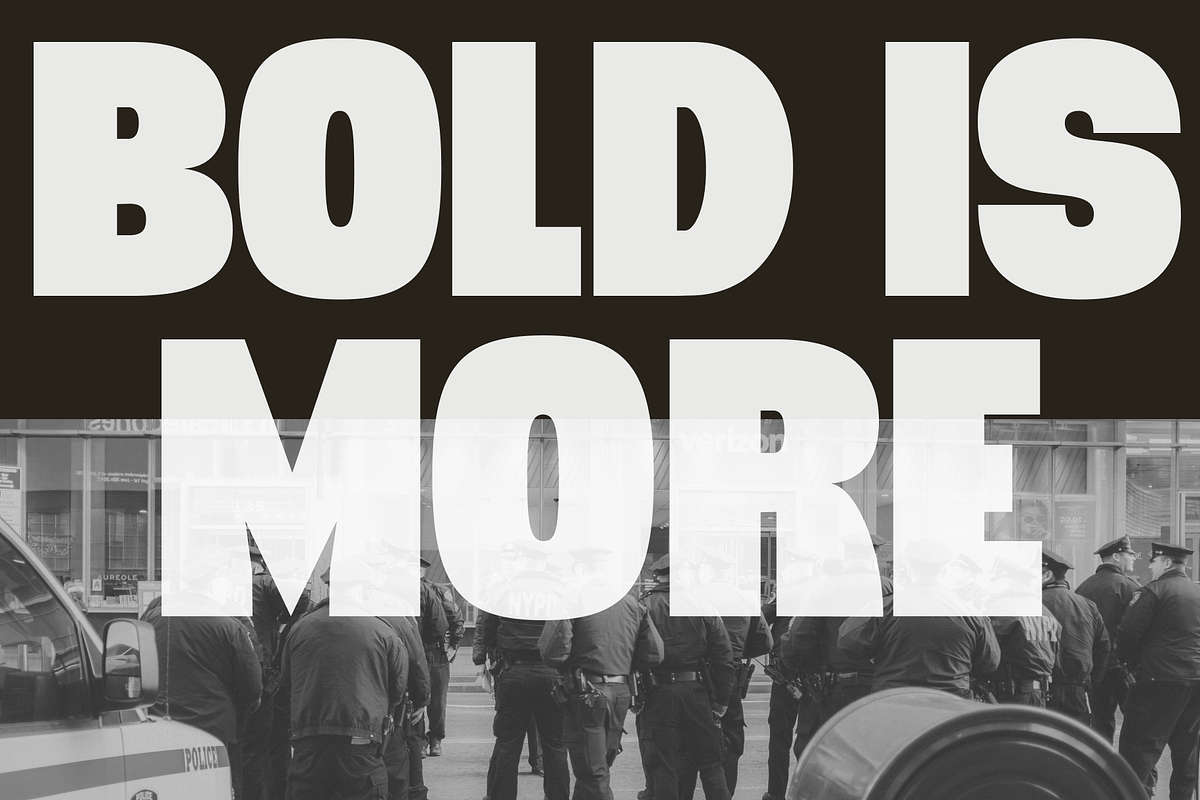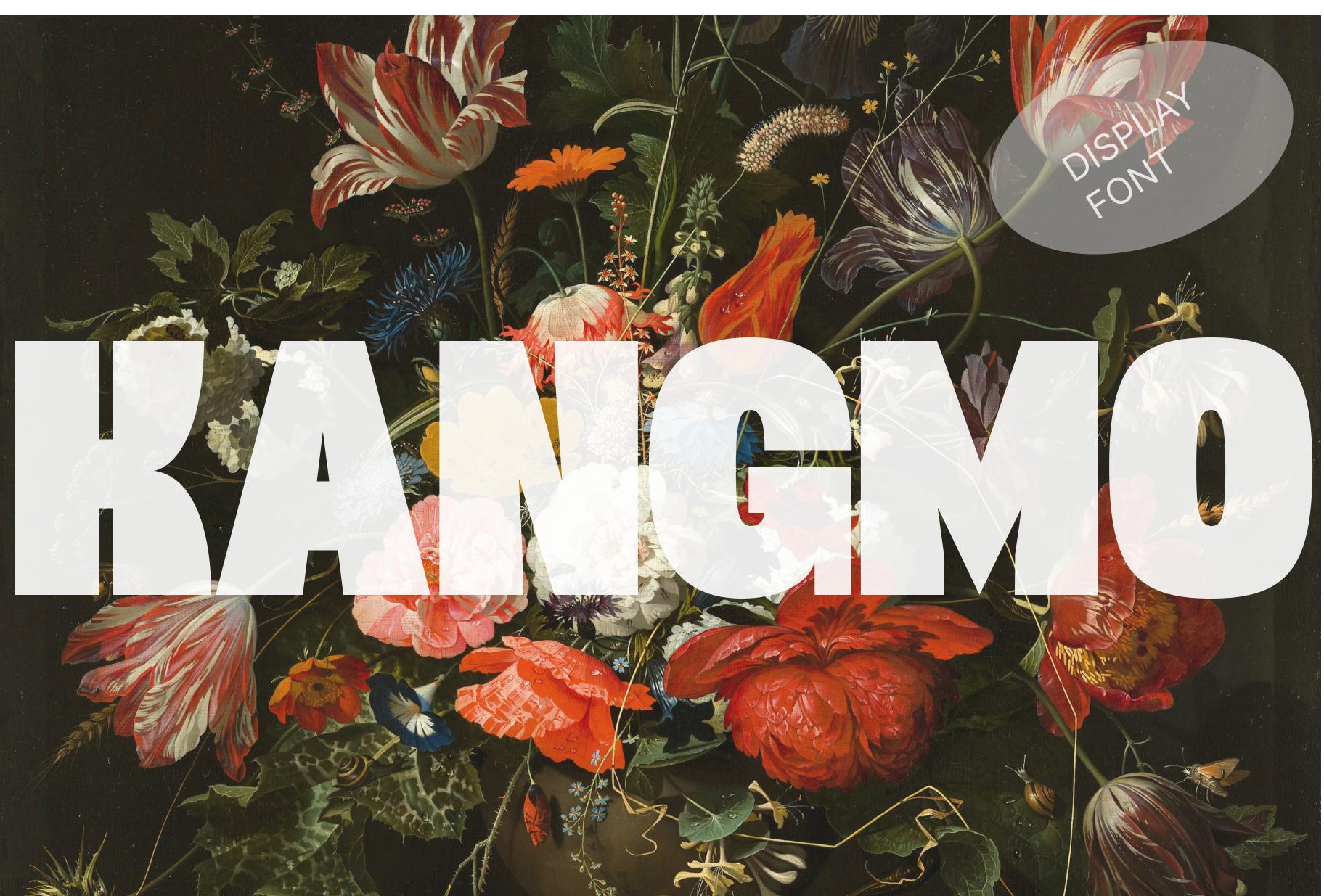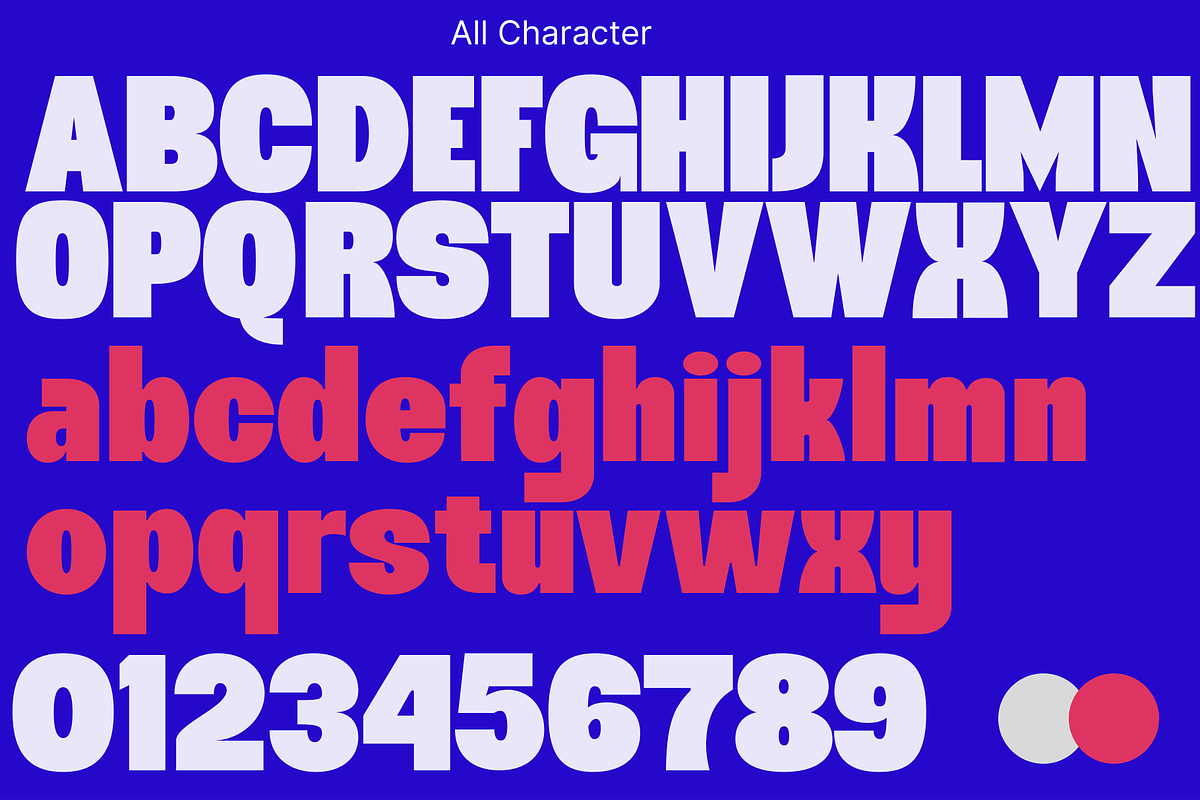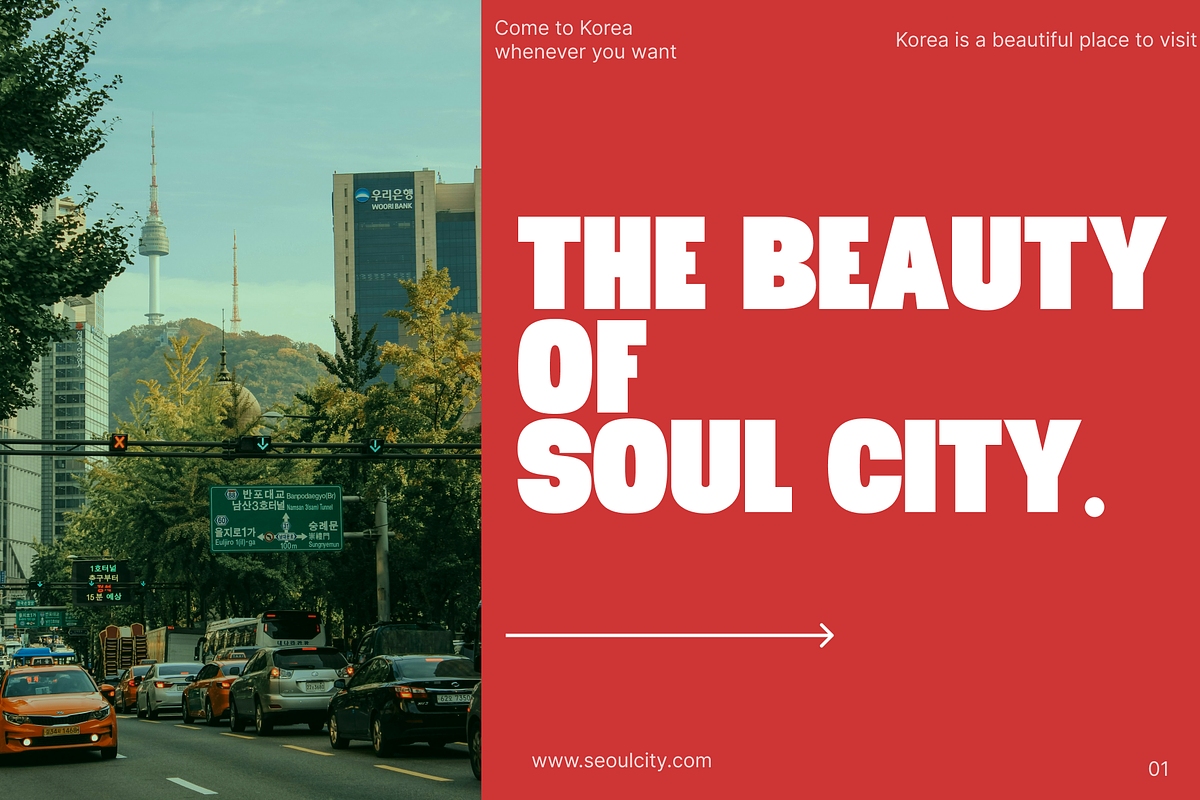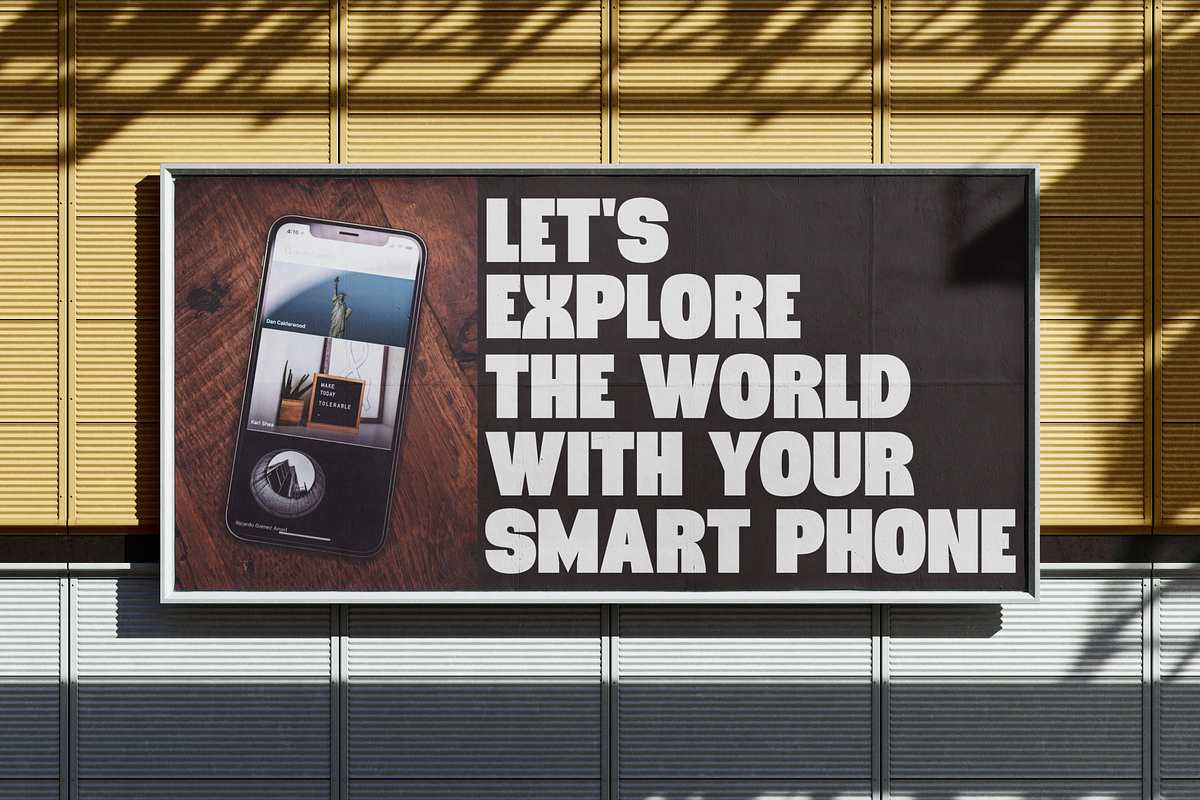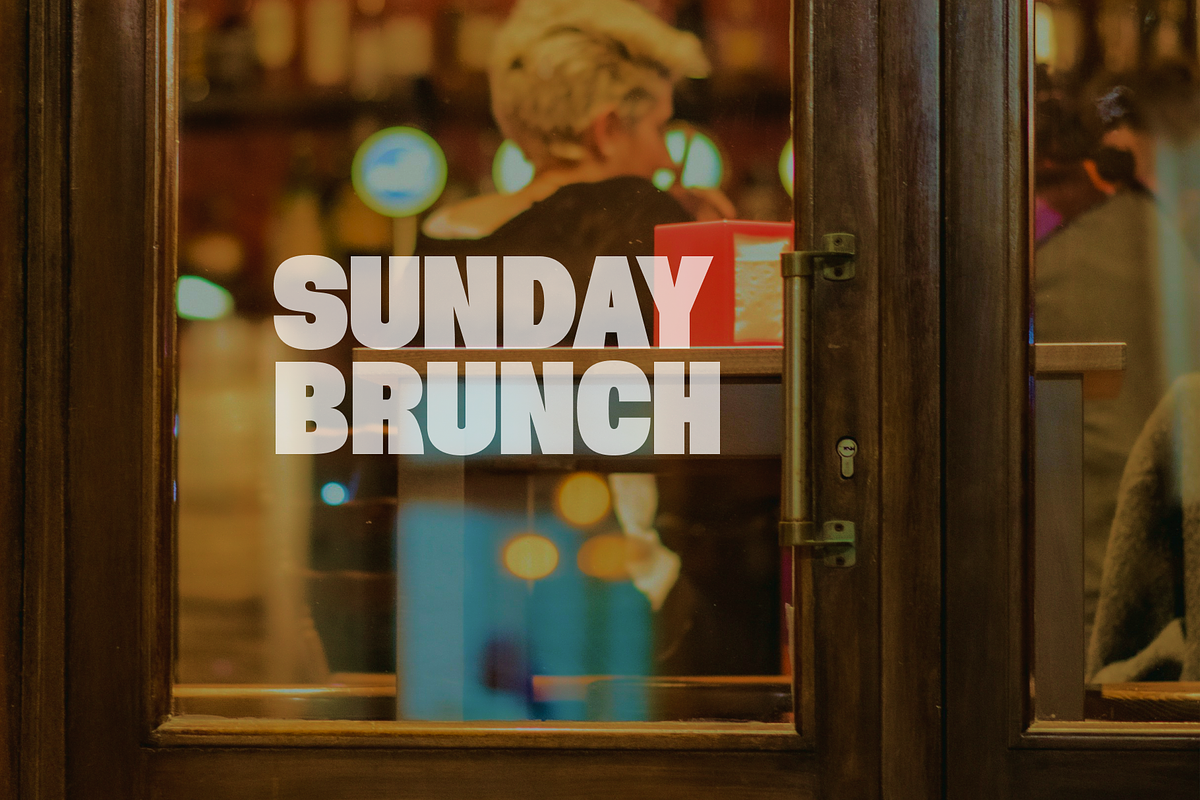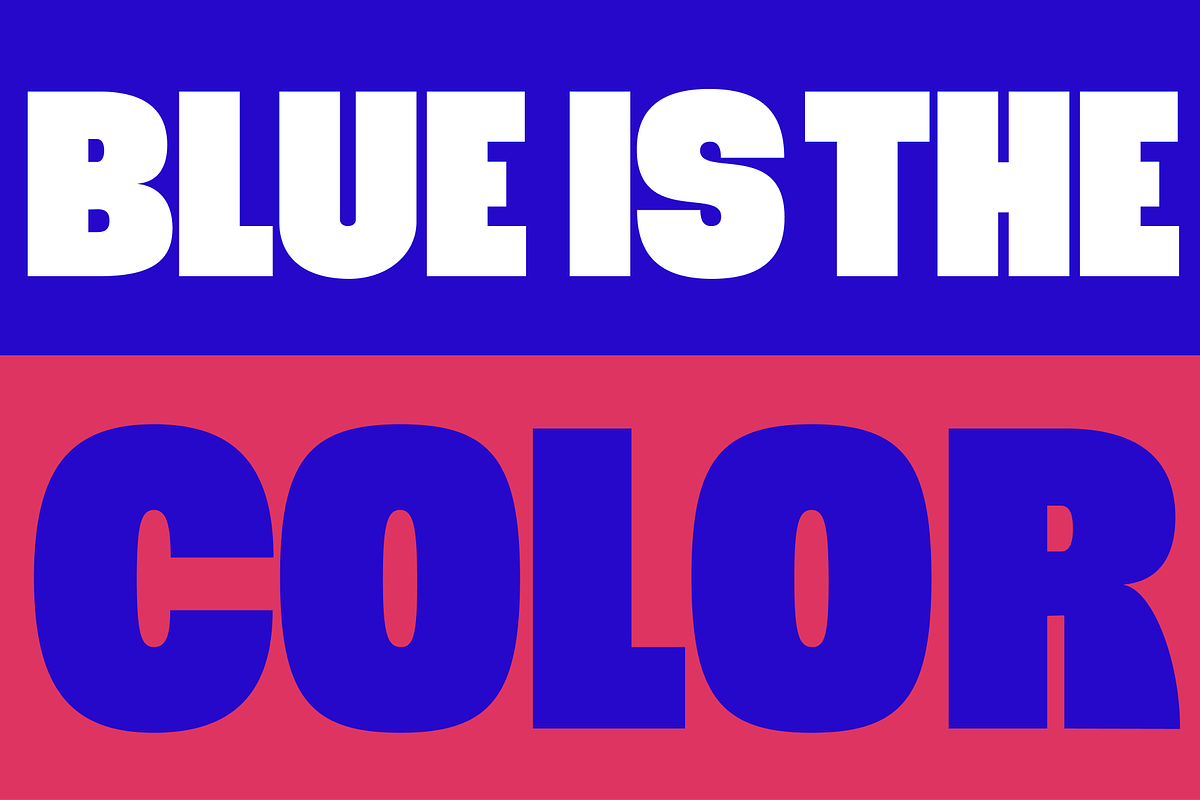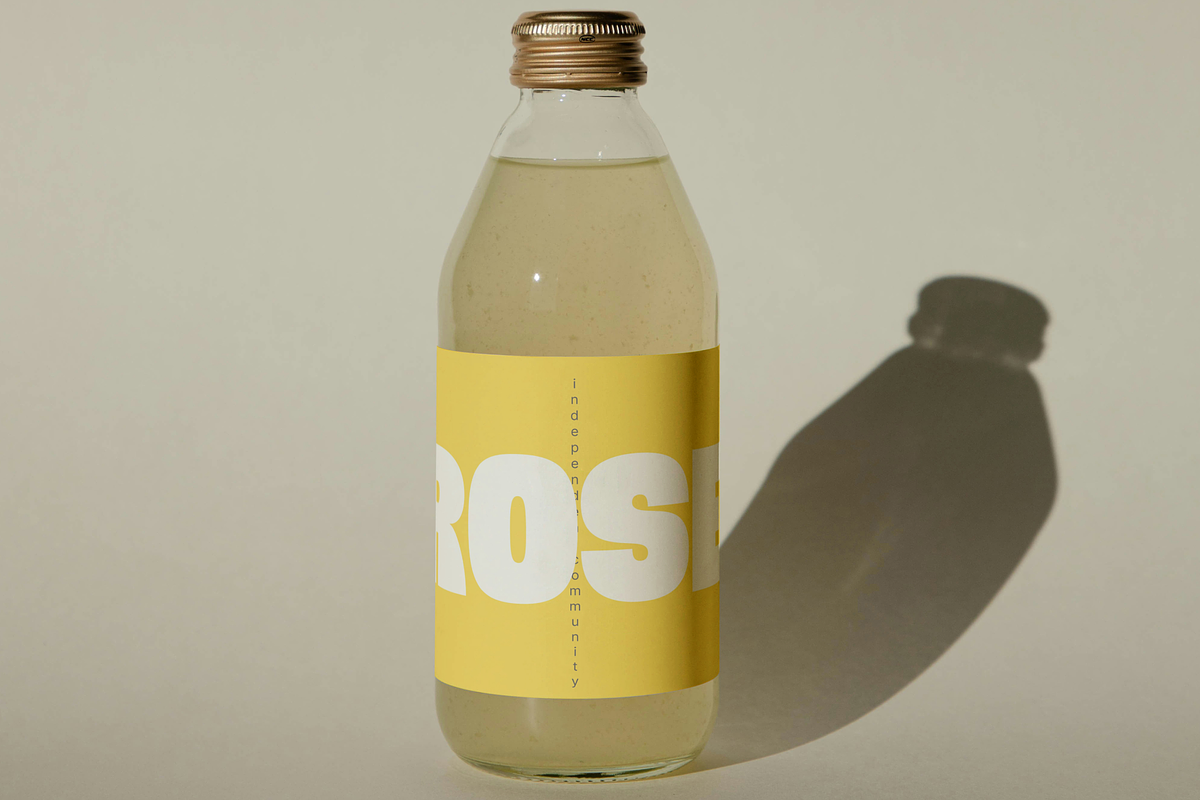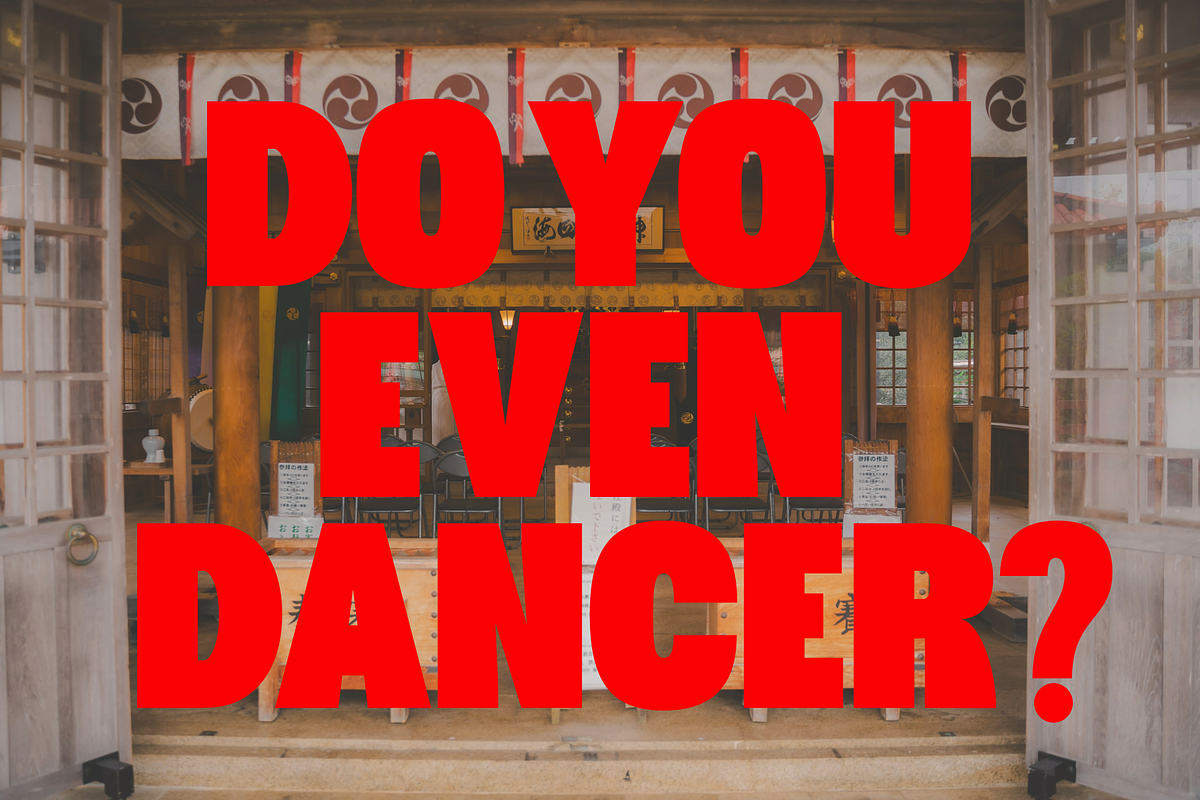
KANGMO-DISPLAY FONT
KANGMO font is a font with an extended style that creates a bold and modern feel. This allows you to immediately use bold styles on large titles and posters.